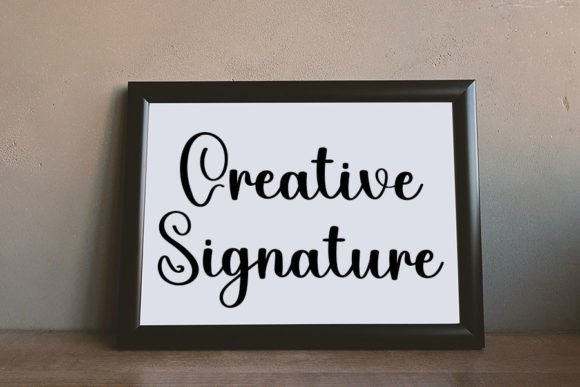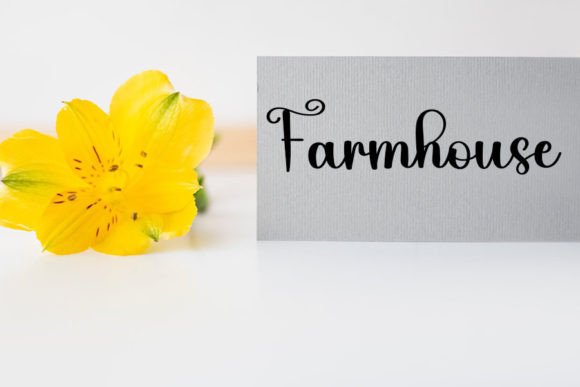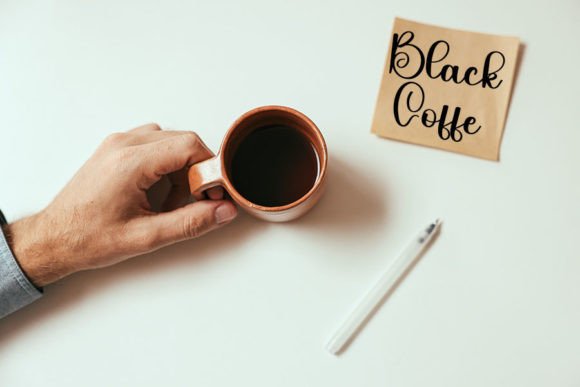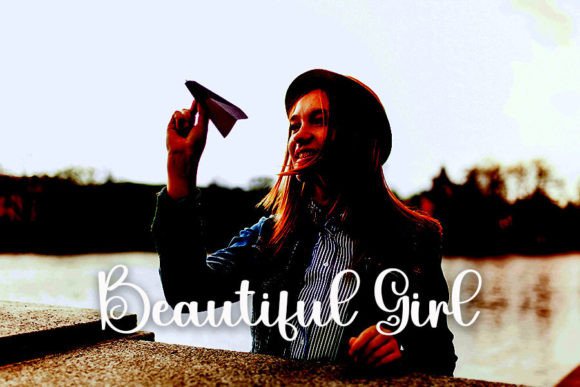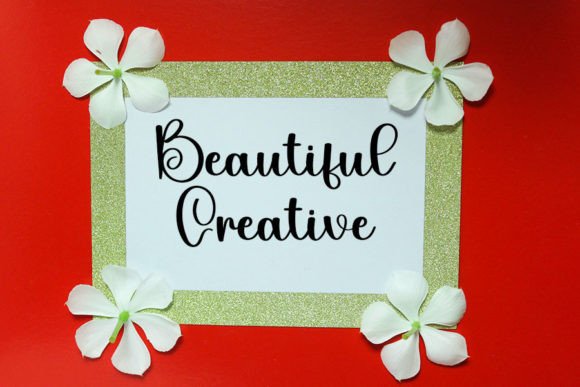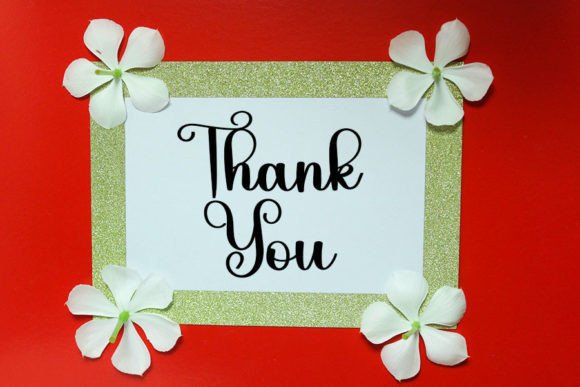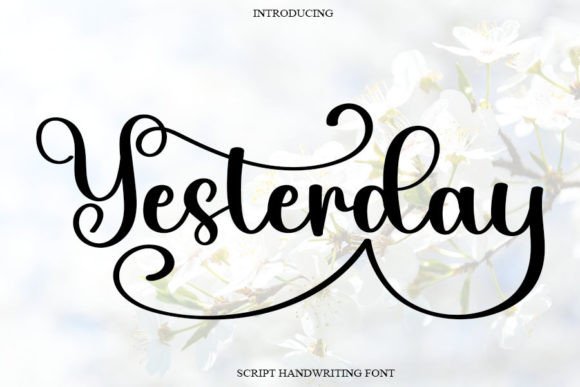
Yesterday Font
Yesterday, a sweet and beautiful handwritten font, brings a touch of elegance and charm to your design endeavors. With characters that gracefully dance along the baseline, this font adds a luxurious spark to any project you wish to create.
The beauty of Yesterday lies in its sweet and handwritten aesthetic, creating an atmosphere of warmth and authenticity. The characters flow seamlessly, evoking a sense of fluidity and grace. Whether you’re working on invitations, branding, or any other design project, Yesterday adds a distinctive touch that elevates the overall visual appeal.
Imagine the impact of Yesterday on wedding invitations, where its sweet and flowing characters contribute to a romantic and intimate atmosphere. For branding, this font becomes a signature element that infuses a sense of luxury into your visual identity. Yesterday is versatile, making it suitable for a range of design projects, from social media posts to product packaging, where it adds a unique and captivating flair.
This handwritten font is more than just a set of characters; it’s a design asset that brings a touch of sophistication and beauty. The dance of characters along the baseline creates a harmonious rhythm, making Yesterday not only visually appealing but also engaging and memorable.
In conclusion, Yesterday is a font that adds a sweet and luxurious spark to your design projects. Its handwritten charm, combined with the graceful dance of characters, makes it a perfect choice for those seeking an elegant and distinctive touch. Let Yesterday be the element that enhances the beauty and allure of your creations, leaving a lasting impression on anyone who beholds your designs.